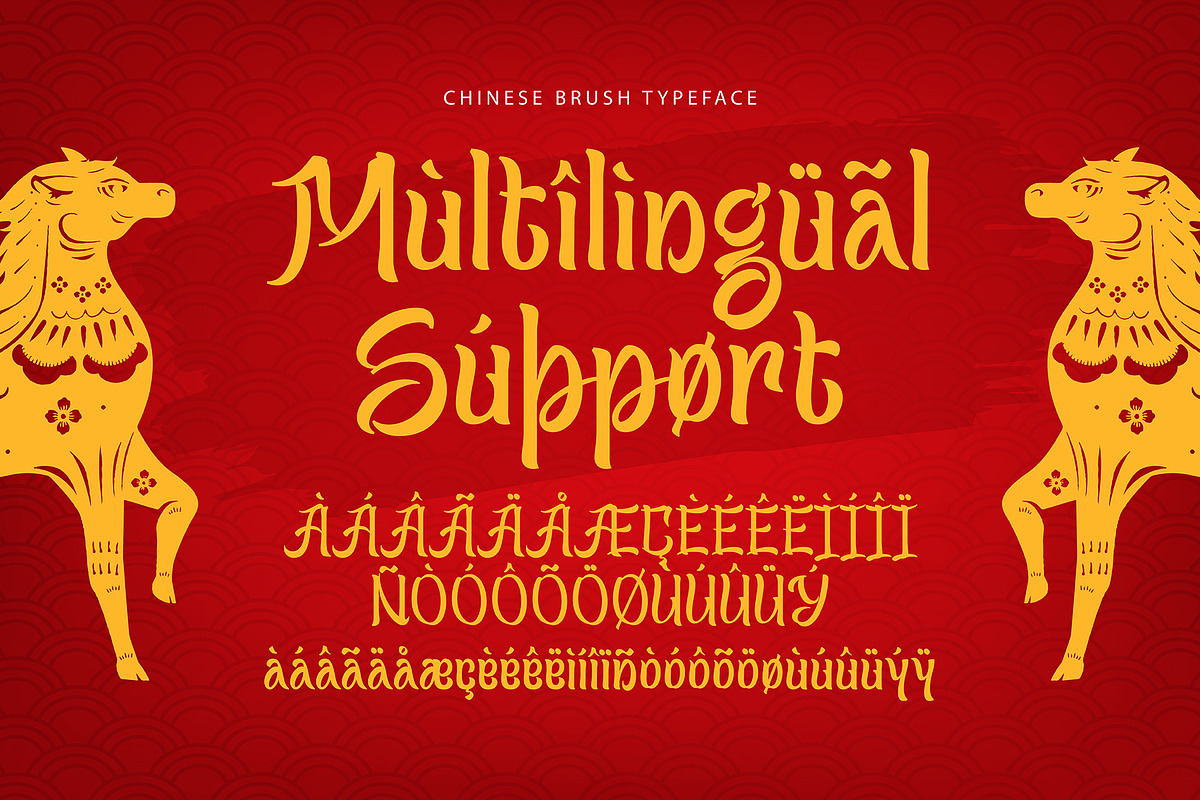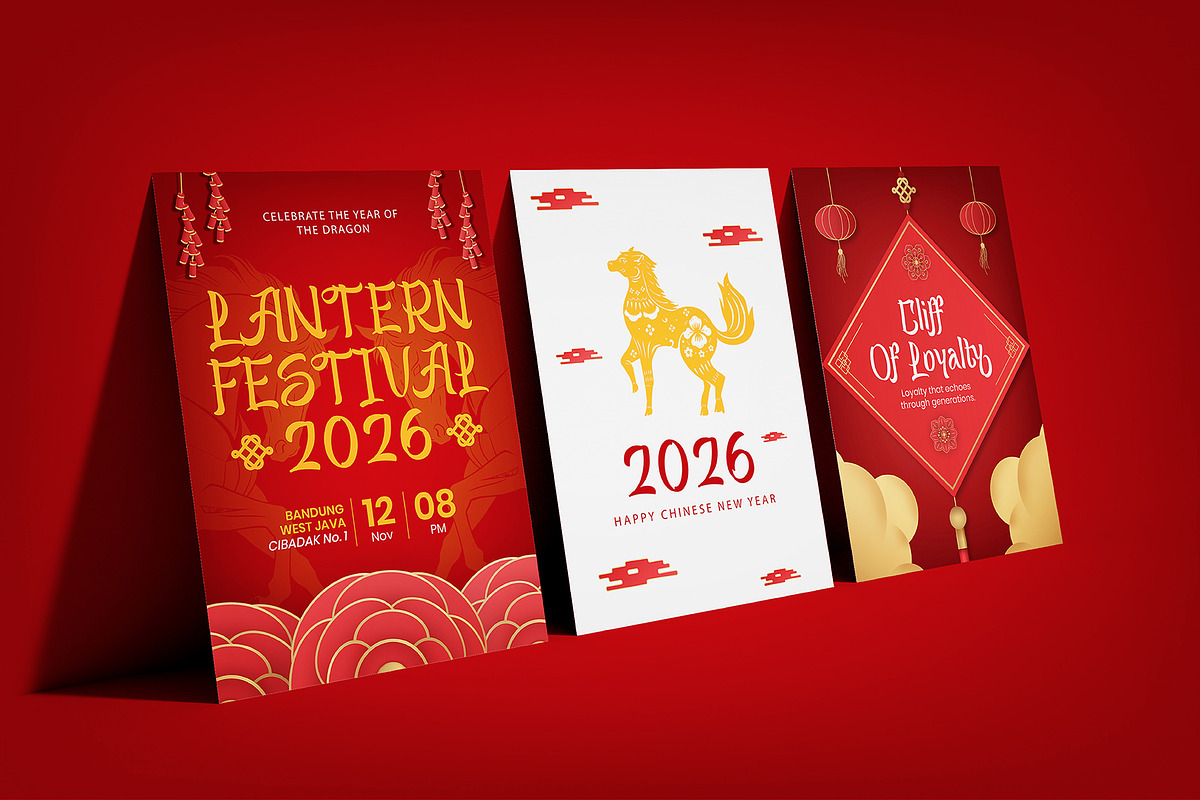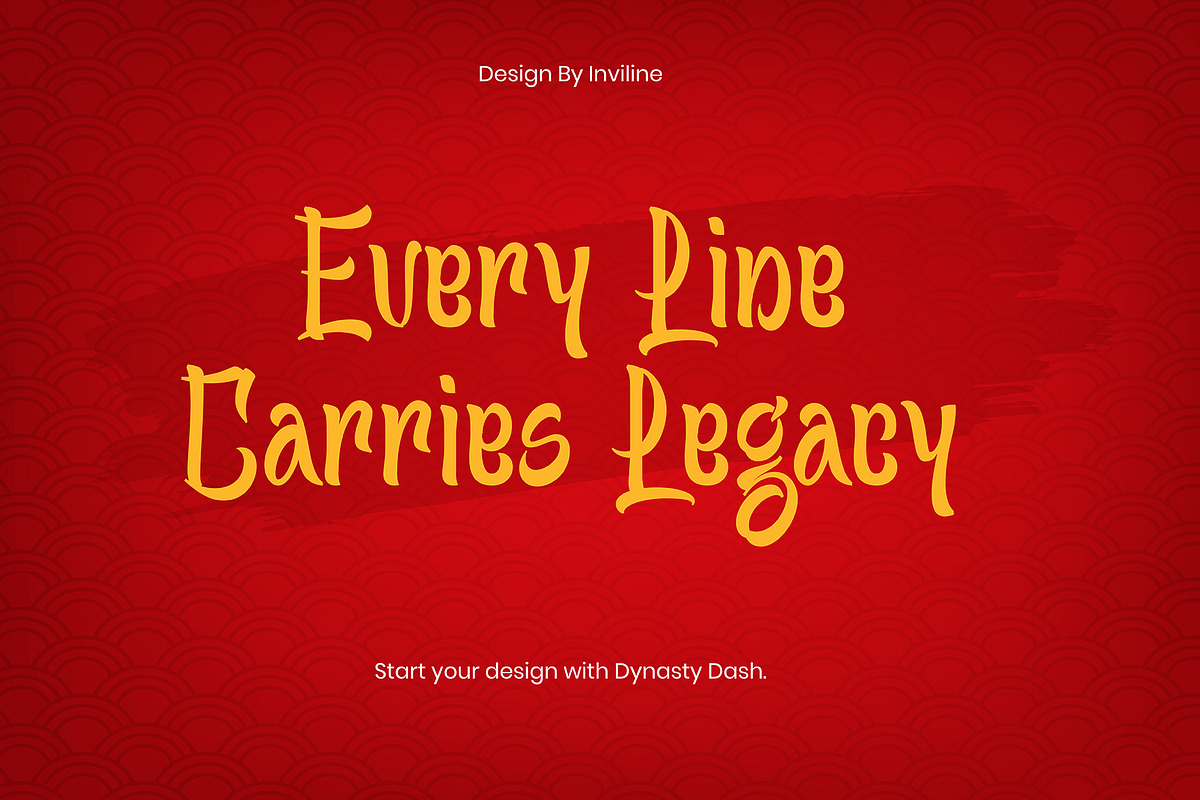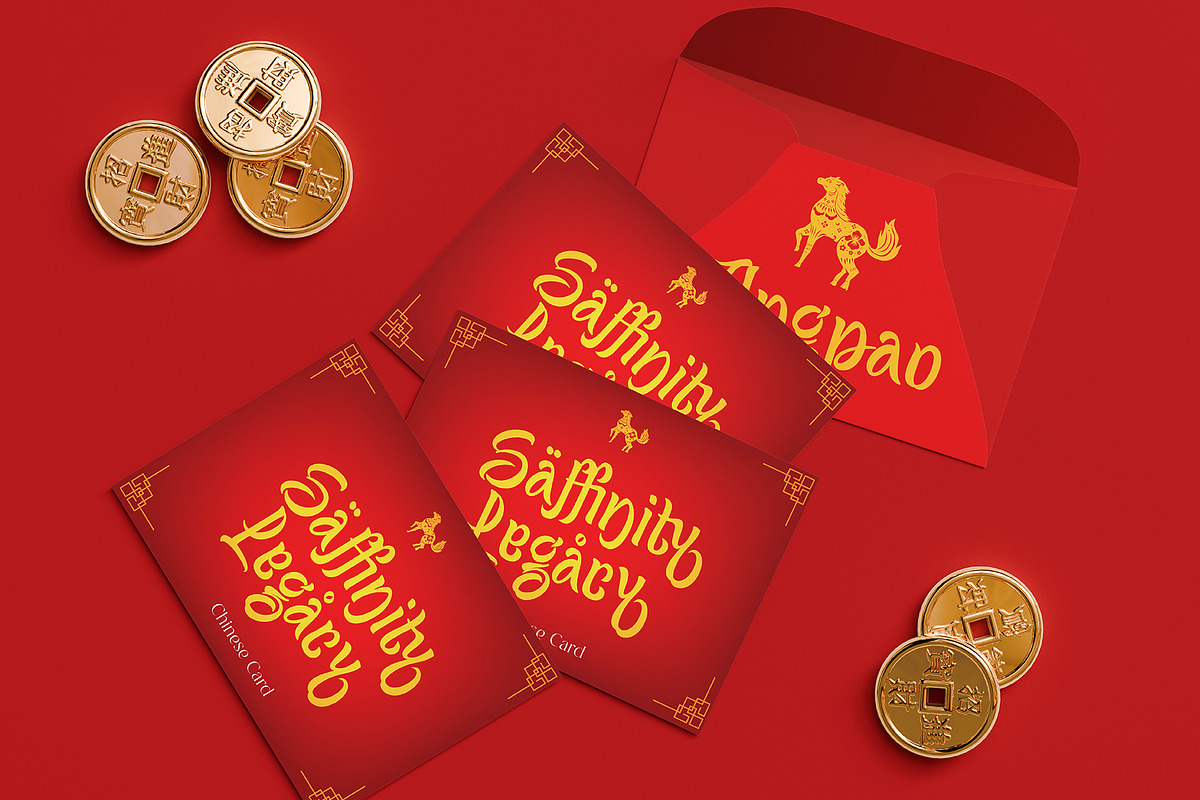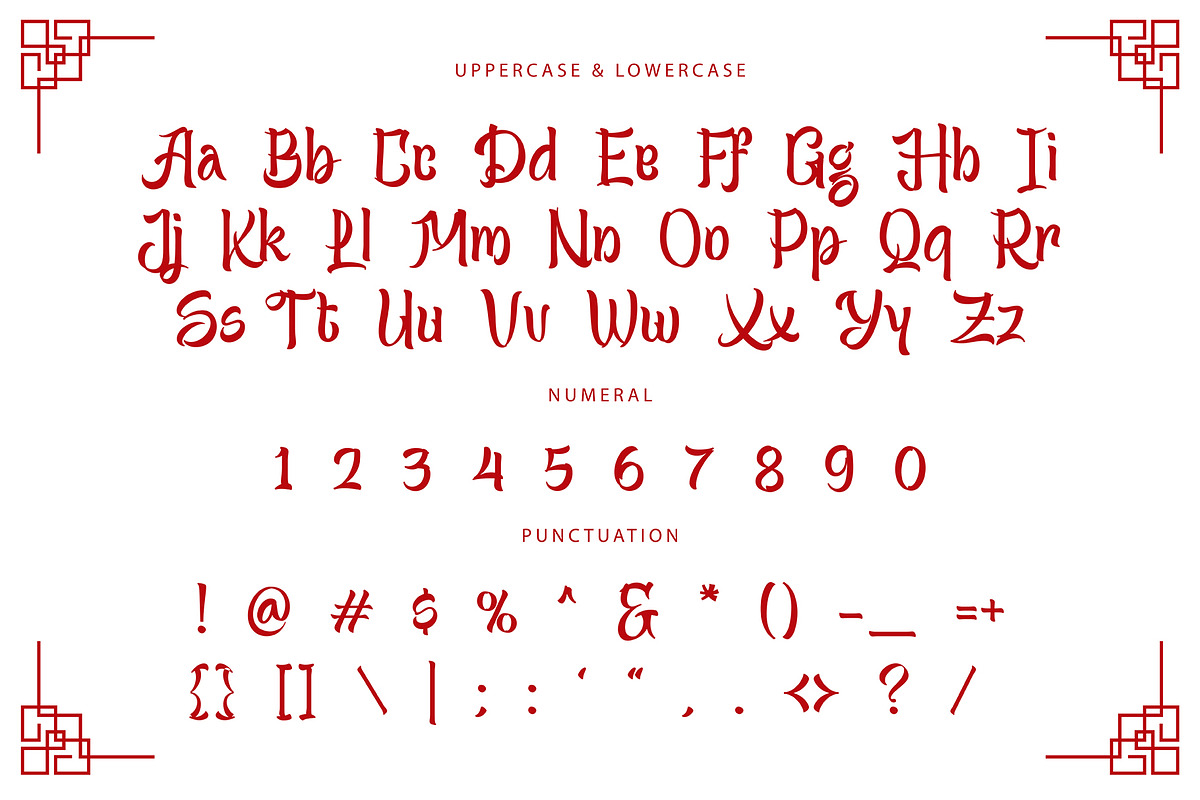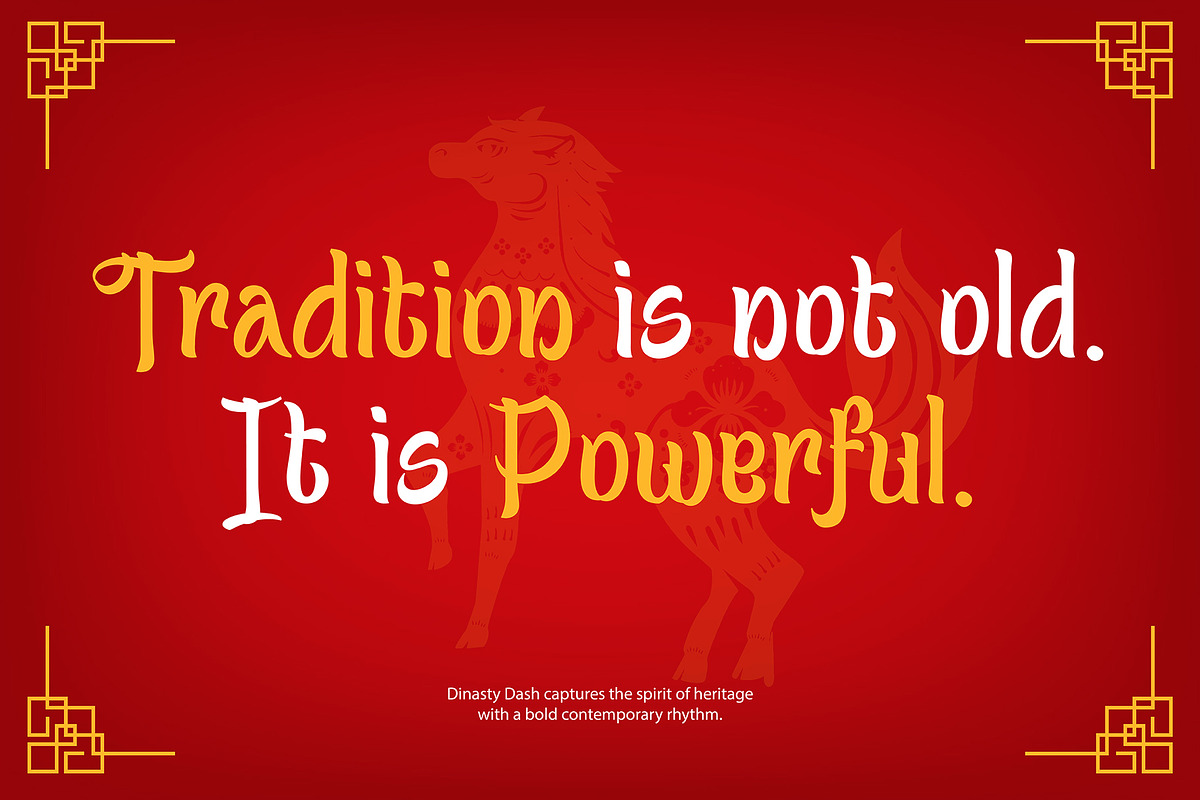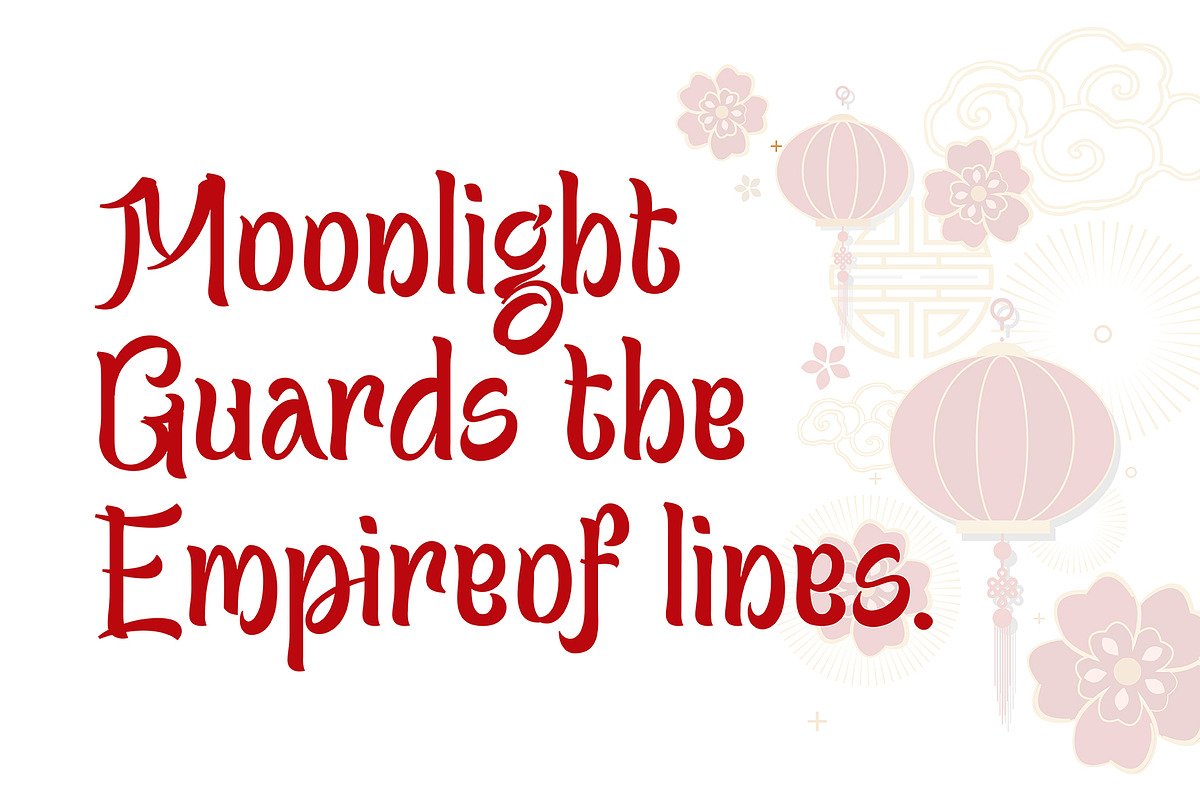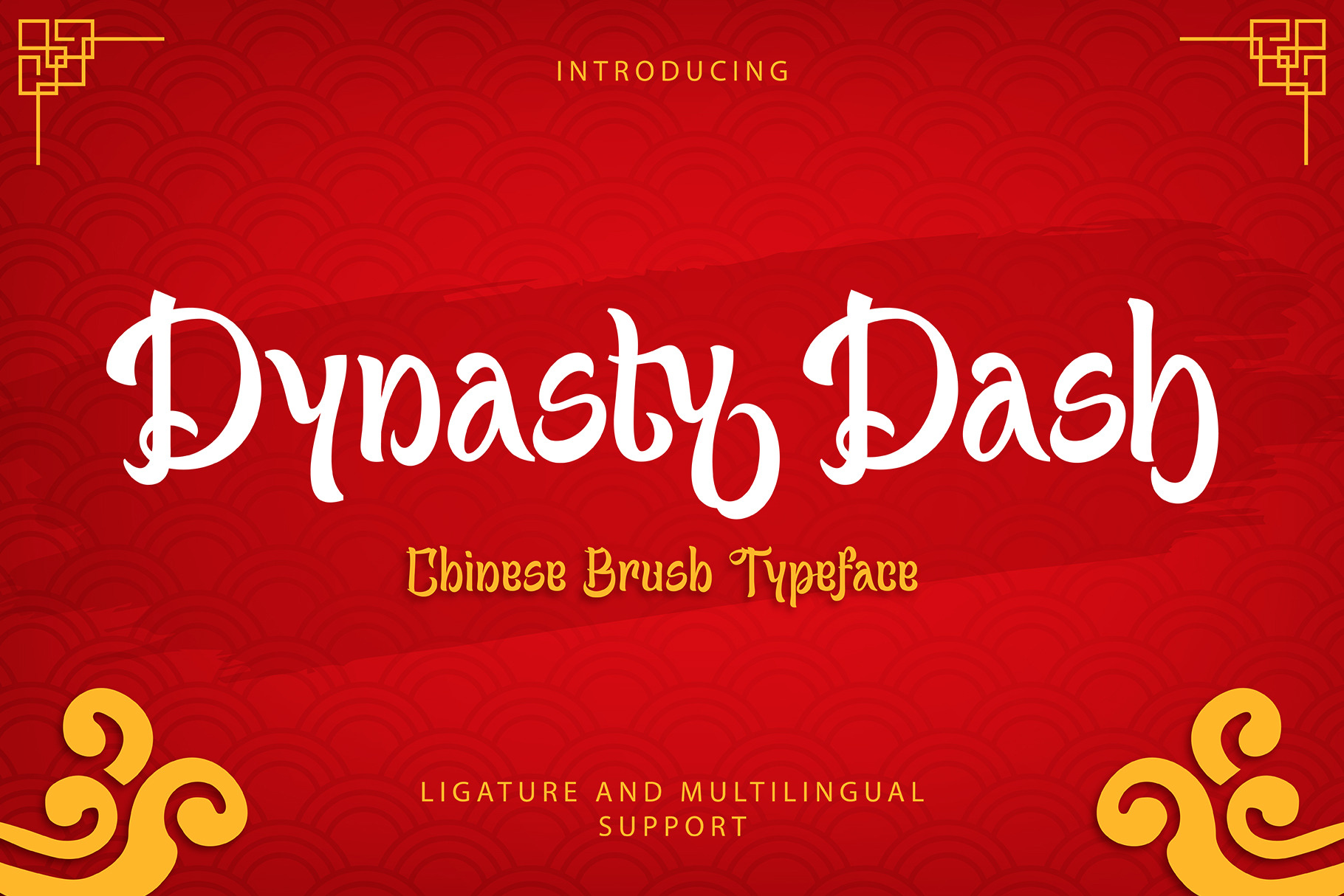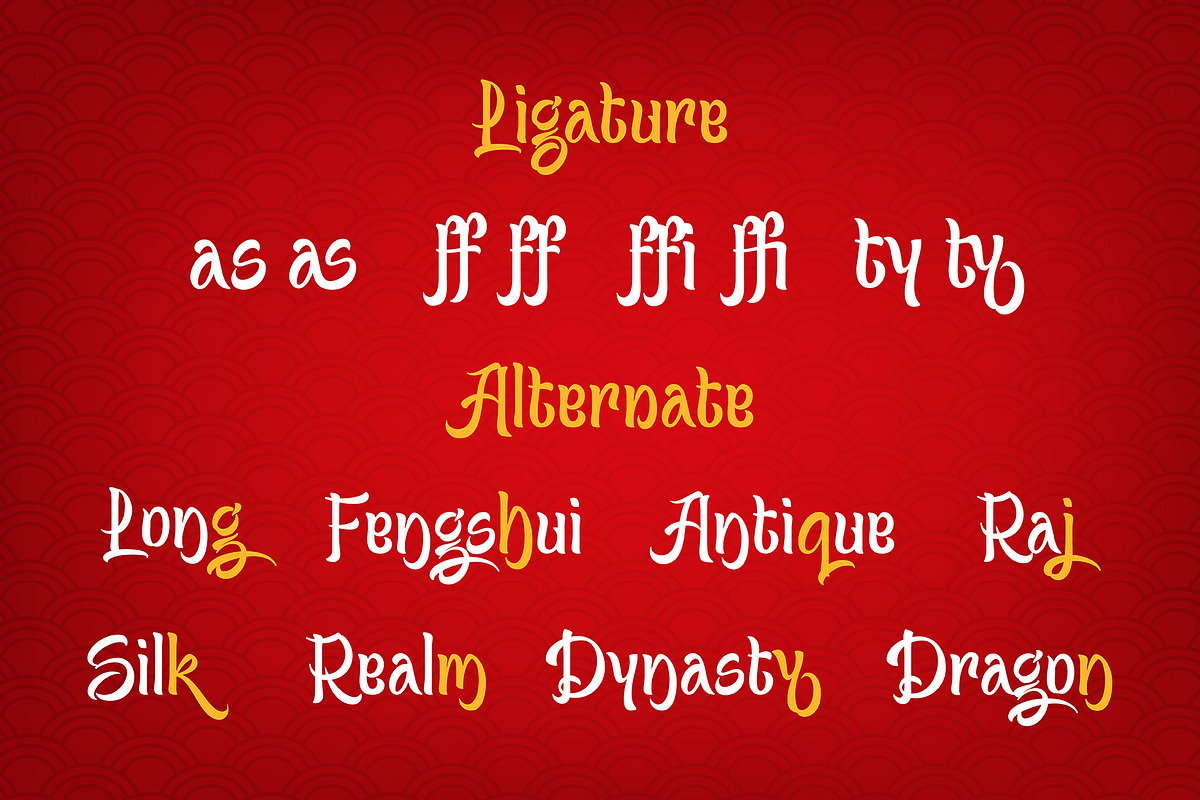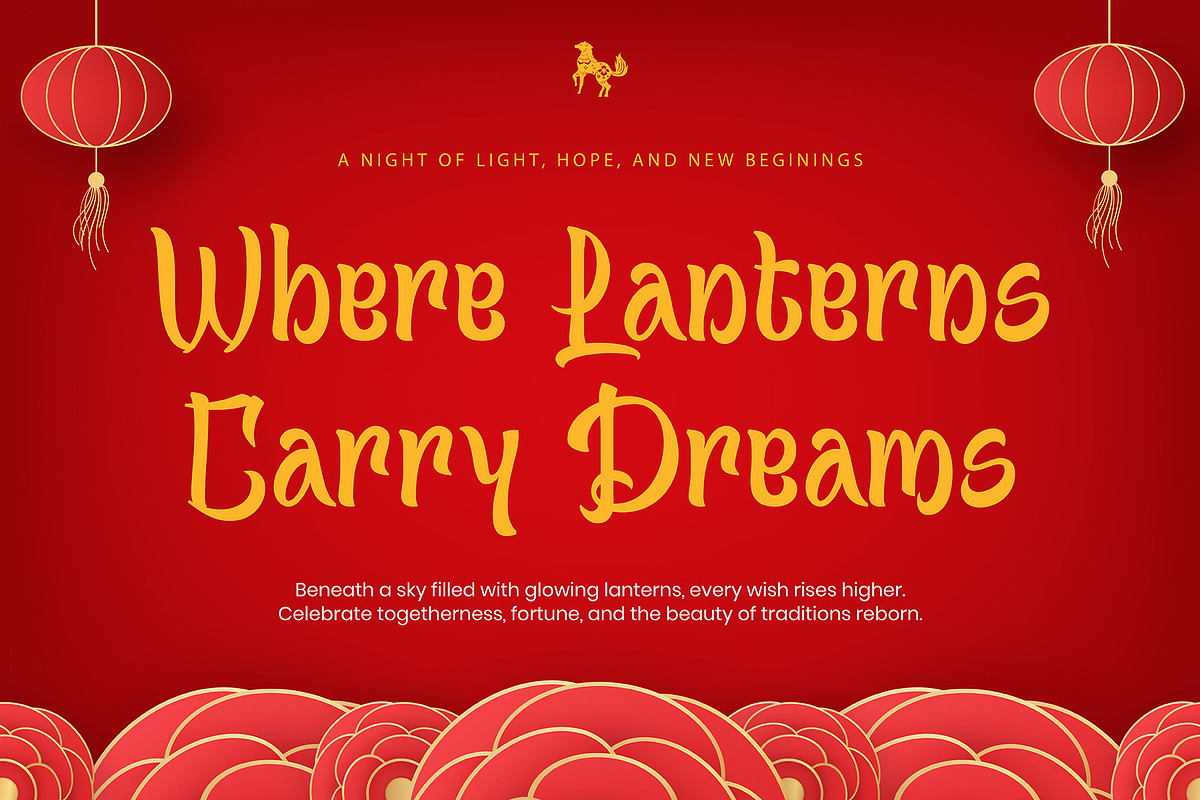
Dynasty Dash - Chinese Brush Font
Dinasty Dash is a bold Chinese brush-inspired typeface that blends traditional heritage with a modern typographic rhythm. Inspired by calligraphic strokes and festive East Asian aesthetics, each letter carries a dynamic brush movement with subtle curves and expressive terminals. The forms feel cultural yet contemporary perfectly balancing authenticity and readability.
Designed for celebration, branding, and impactful display work, Dinasty Dash shines in Lunar New Year designs, festival posters, packaging, restaurant branding, editorial layouts, and cultural campaigns. With built-in ligatures and multilingual support, this typeface allows you to create harmonious compositions that feel rich, symbolic, and full of character.
Uppercase & Lowercase characters
Stylish Ligatures
Alternate Characters